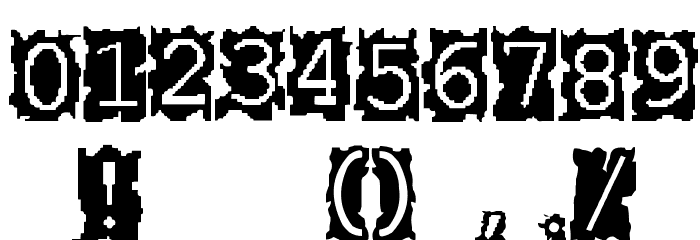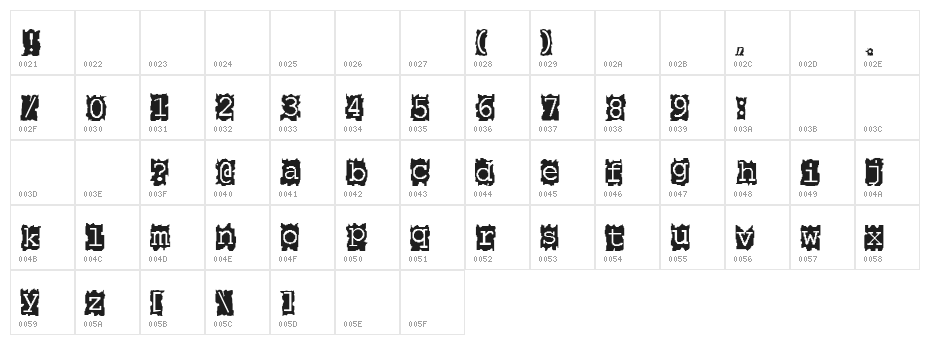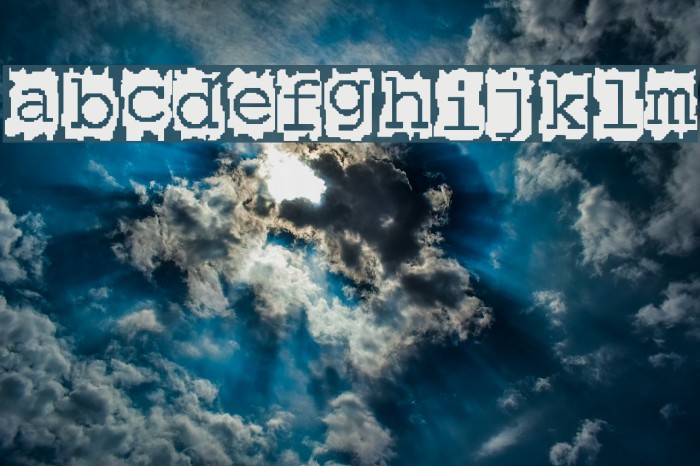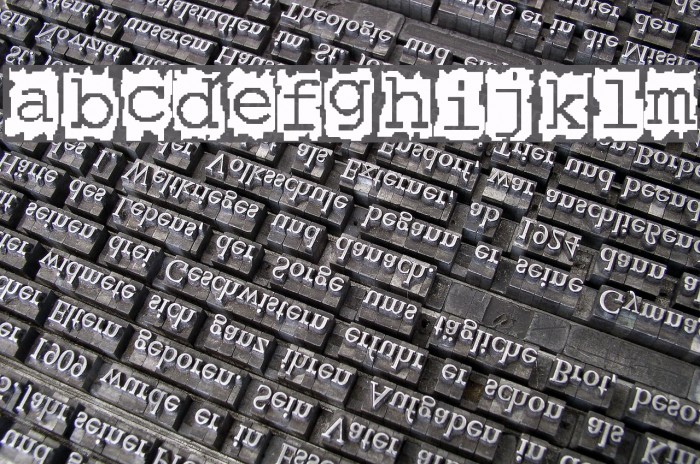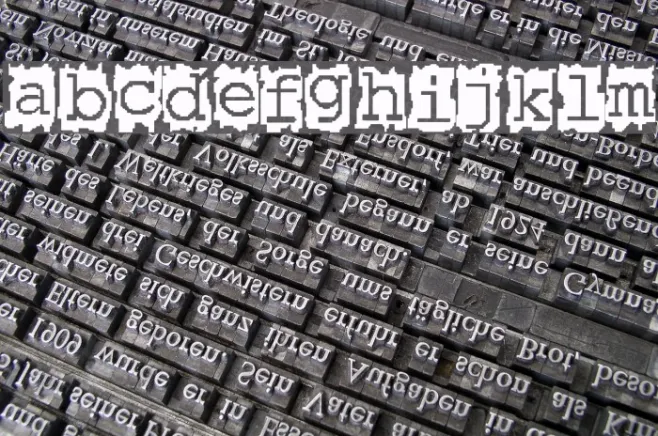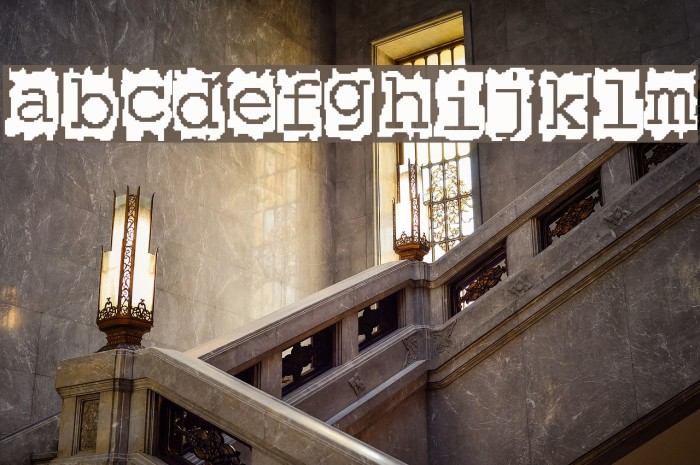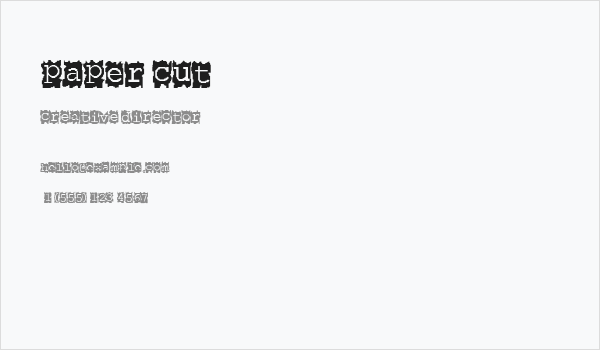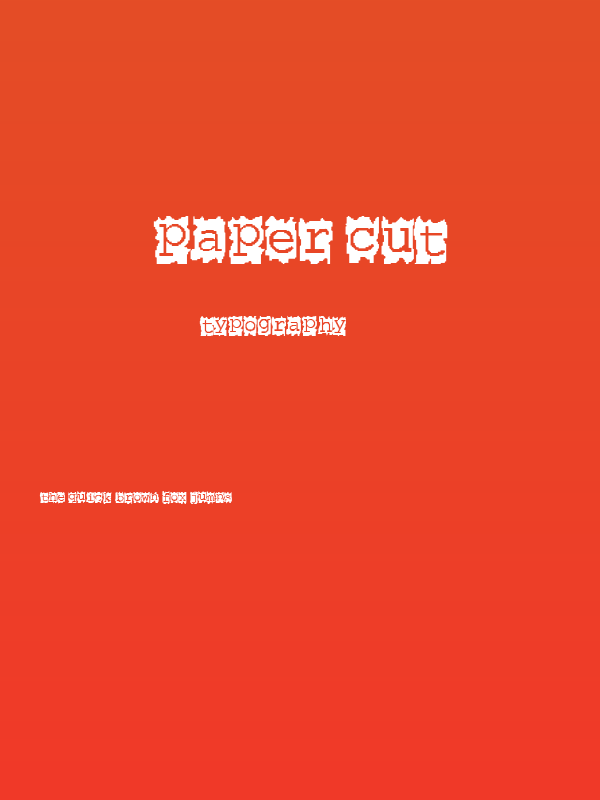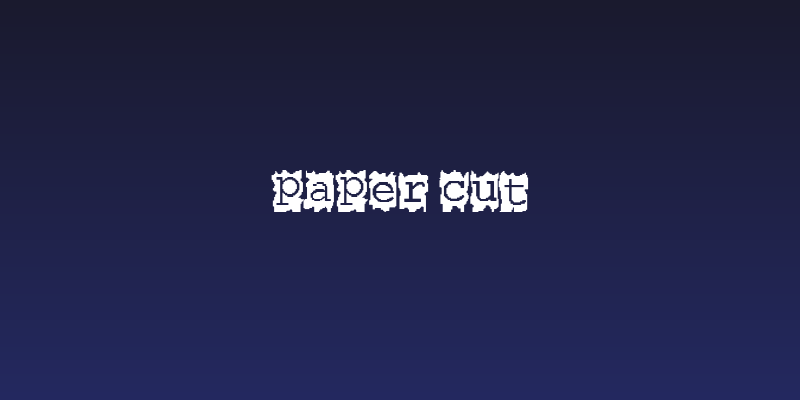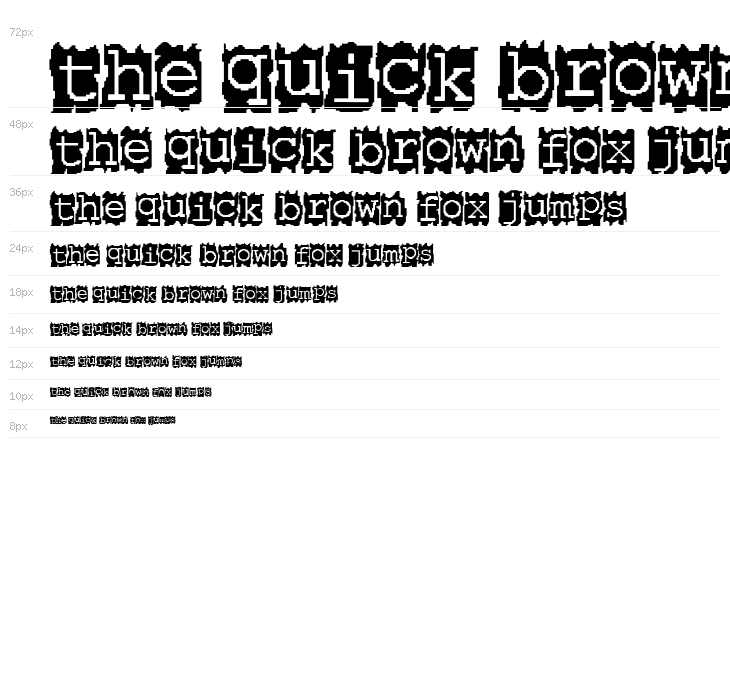
Paper Cut Font
Paper Cut Description
This font features a unique, rugged design that mimics the appearance of letters cut from paper. Each character has an irregular, jagged edge, giving it a handcrafted and artistic feel. The bold and blocky structure of the letters ensures high readability while maintaining a playful and creative aesthetic. This font is particularly striking in its uppercase and lowercase forms, with consistent thickness and a slightly condensed appearance. The numbers and special characters follow the same design principles, making them cohesive with the alphabet. The overall style is reminiscent of a DIY or craft project, making it ideal for designs that require a touch of whimsy and creativity.